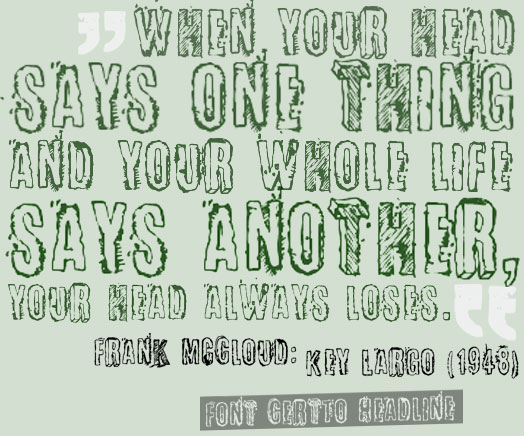
»Certto Headline« is totally free font, enjoy it in your work. It is an informal grunge font, available for free download and use. Download of this grunge font for your collection. With this dirty, distressed and grungy font you can create a superb grunge design.This font was made to be used in pop art and artistic projects that involve action and emotion.
Inspired by B-Movie Posters and by Visualism of the 1930´s Universal Horror Movies.
Usefulness of Font: Extreme Sports Branding (Snowboard, Surf, Fighting Sports etc.), Book and Comic Book Cover Designing, Magazine Layout Hedline Designing, Poster Designing, Music Band Branding and Music Band Product Package Designing, Game Console Product Branding, Movie & Entertainment Branding, Blog & Web Interface Designing, Food, Drink & Beverages Package Designing.
Font Includes: 1. Lowercase Letters [which looks like UC Letters] / 2. Uppercase Letters / 3. Numbers / 4. Most Common Punctuations